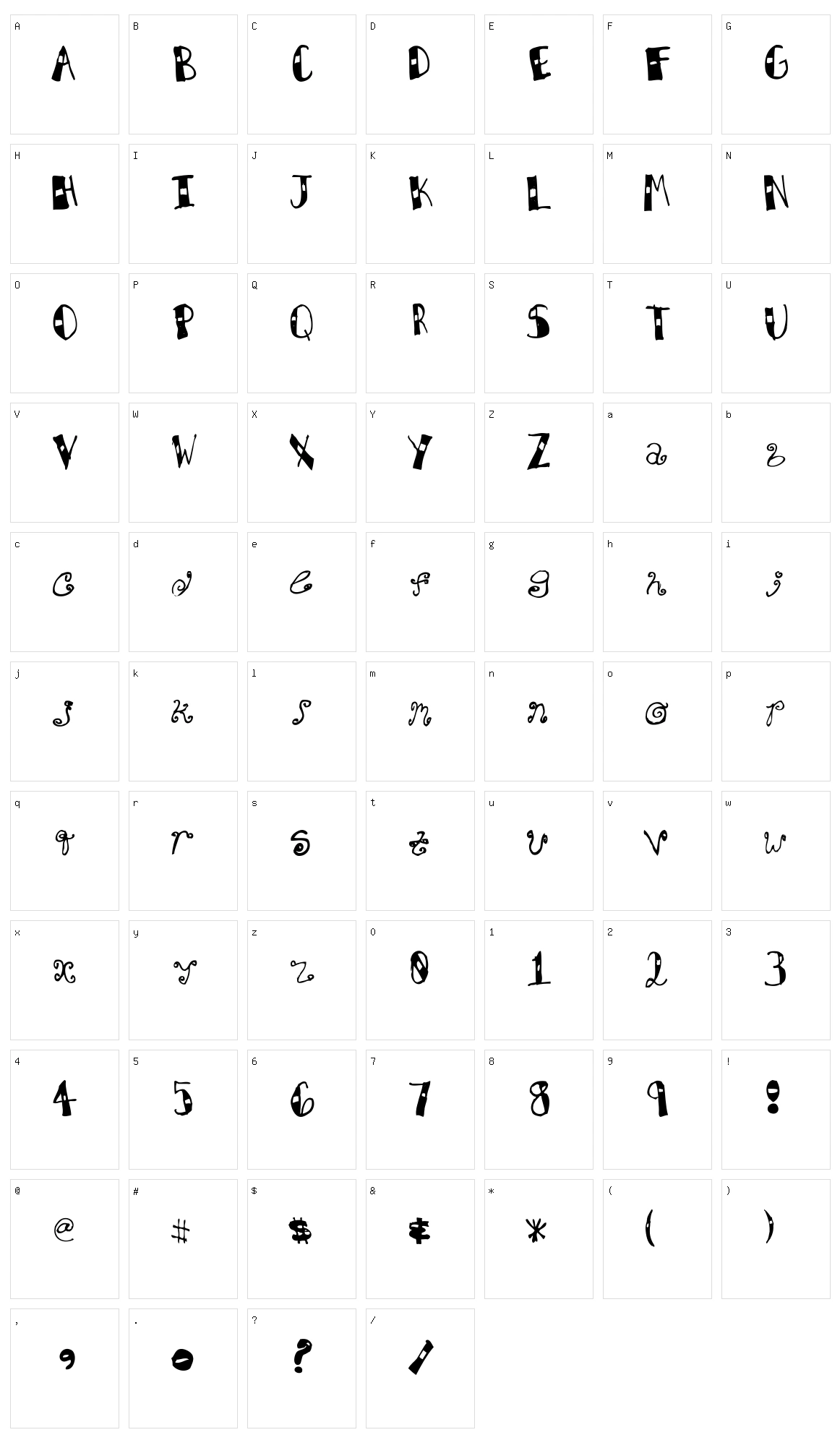
The free font Square One Jenna! is carefully designed by Jenna Cary, showcasing a thoughtful balance of creativity and usability and falls under the Cartoon font style. When you download the ZIP file, it contains only 23.12 KB of font files, making it lightweight and quick to download. Please review the license details below to understand permitted usage and distribution rights. If license information is not available, we recommend using this font for personal projects only or contacting the author directly for commercial usage permissions.